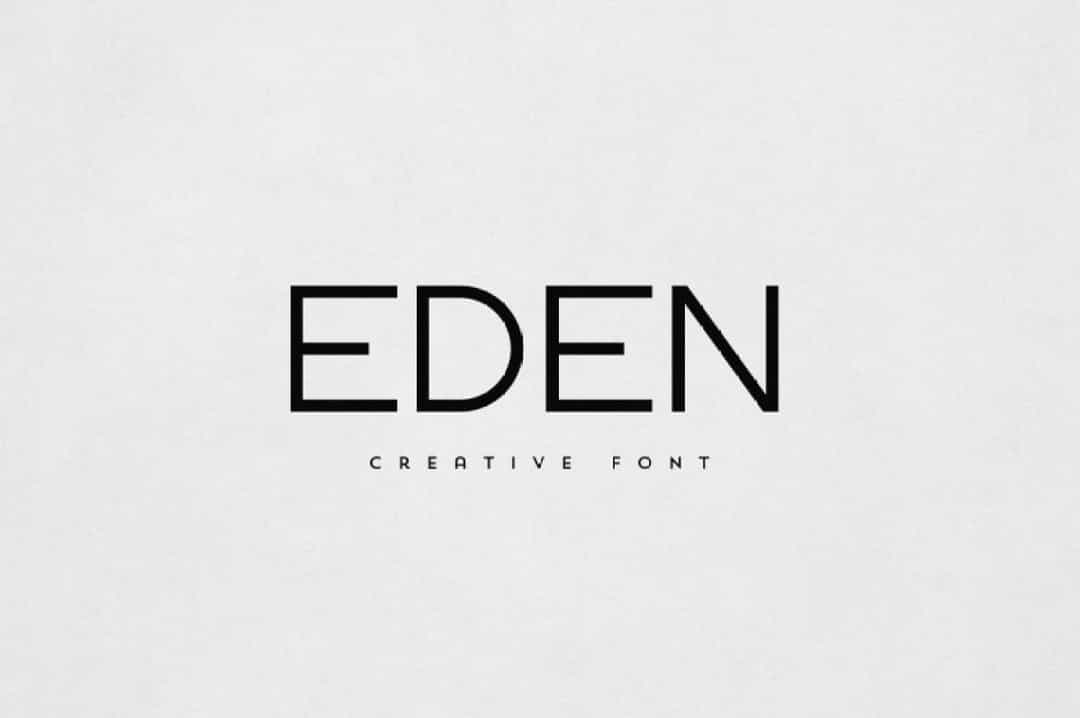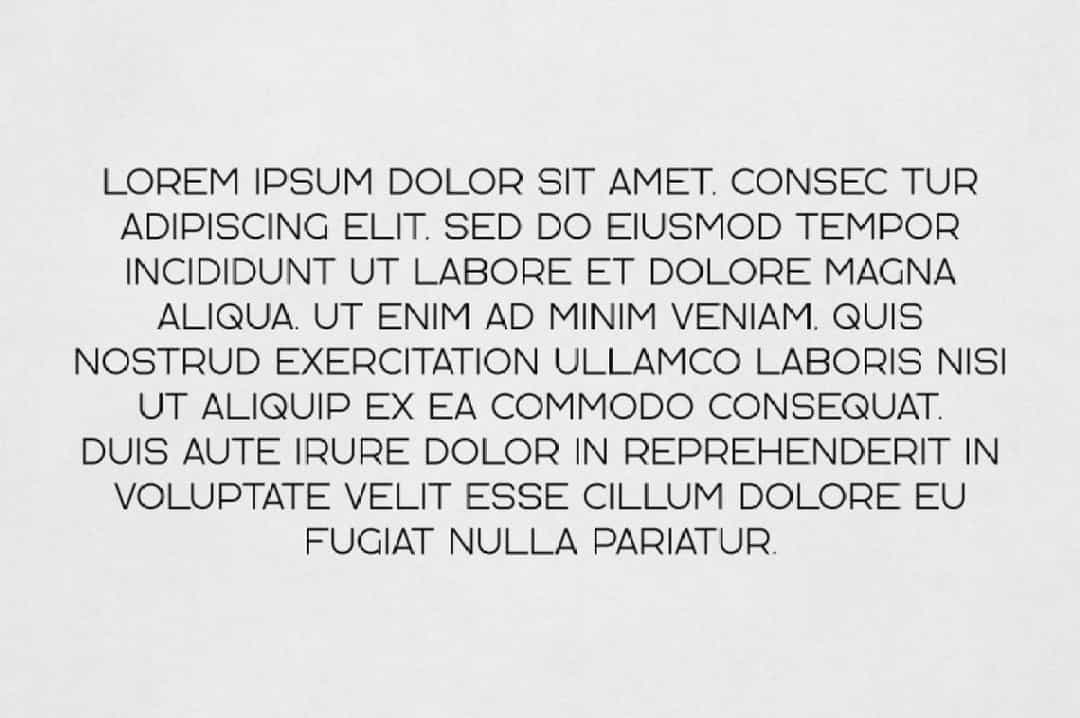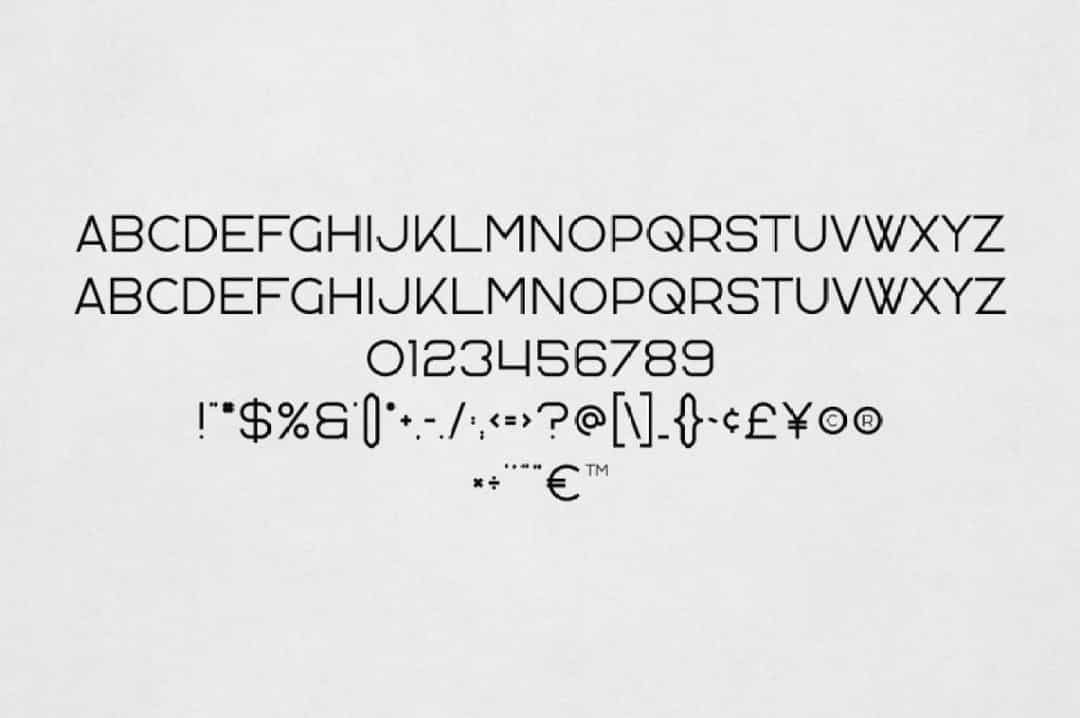
Eden is an elegant and flexible sans serif font designed to make your typography truly stand out! Use Eden for anything from headlines, logos and branding designs, branding of products magazine covers to simple text overlays on background pictures – it will certainly leave an impactful statement about who your are or your product! Ideal as homeware designs, packaging for products magazines headlines or simply adding an elegant text overlay!